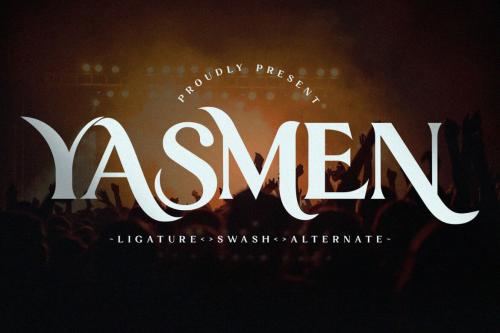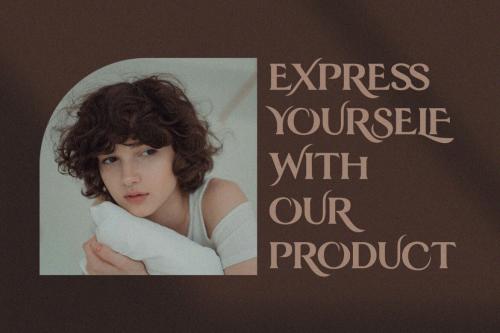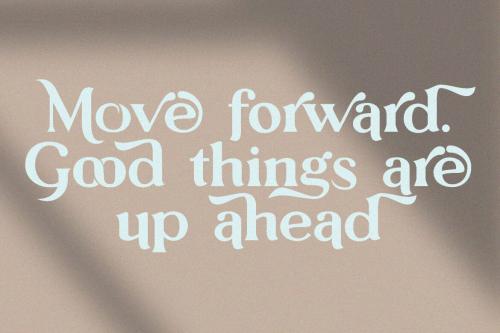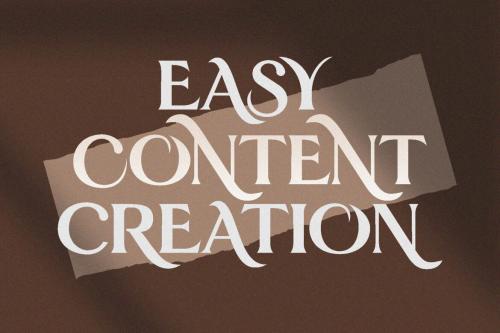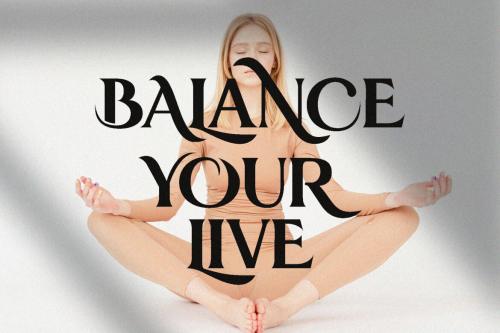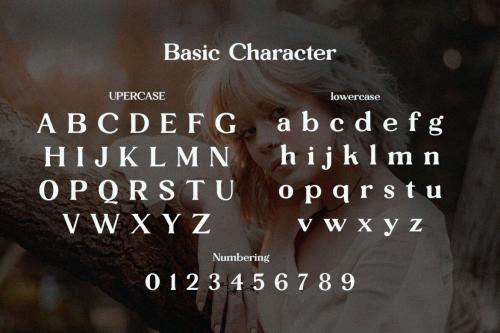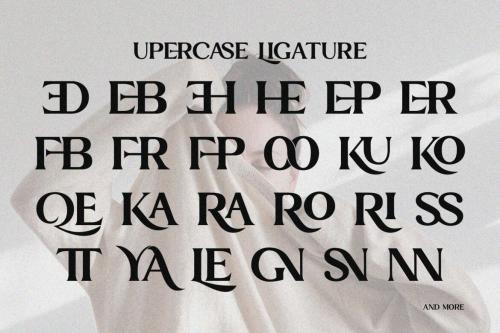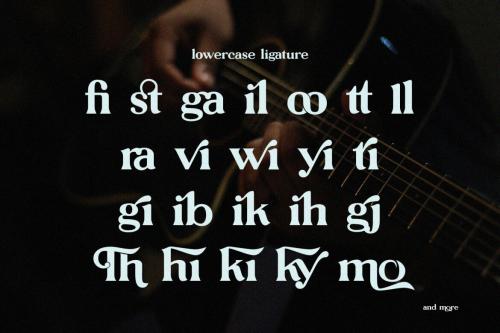
Introducing the new Yasmen Ligature Serif
Yasmen is a classy, classic serif font.
This font is modern and elegant. very good for logos, magazines, social media, titles and subtitles, writing descriptions and so on. These fonts are perfect for you and ready to go together for your next design!
For those of you who need an elegant, stylish, classy and modern touch to your designs, this font is made for you!
Yasmen is built with OpenType features and includes ligatures, alternatives, numbers, punctuation, and also supports other languages.